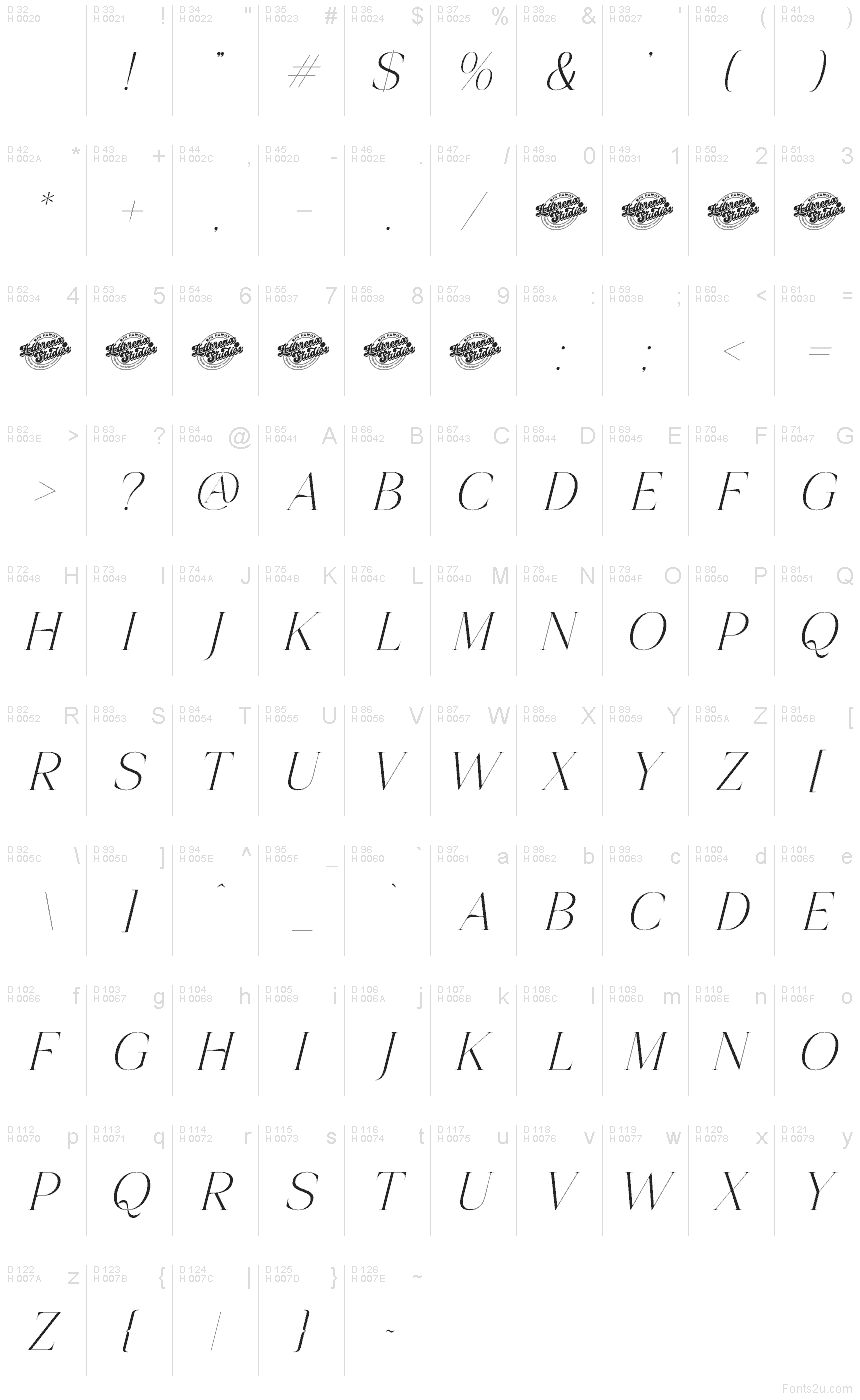
Onesta Vigano DEMO VERSION Italic
Onesta Vigano Italic font by Storytype Studio is a free serif font that balances elegance and sophistication with a high-contrast modern touch. Its refined, classic appearance makes it visually captivating for any design project that demands attention to detail and subtlety in its typography.
Prominent practical uses of Onesta Vigano Italic include book covers, special edition boxes, branding, packaging designs, advertisements, posters, prints on clothing/apparel items or fashion accessories/packaging materials (such as labels or tags), business cards/stationery items such as letterheads/envelopes/flyers/posters etc., website headers/navigation elements.